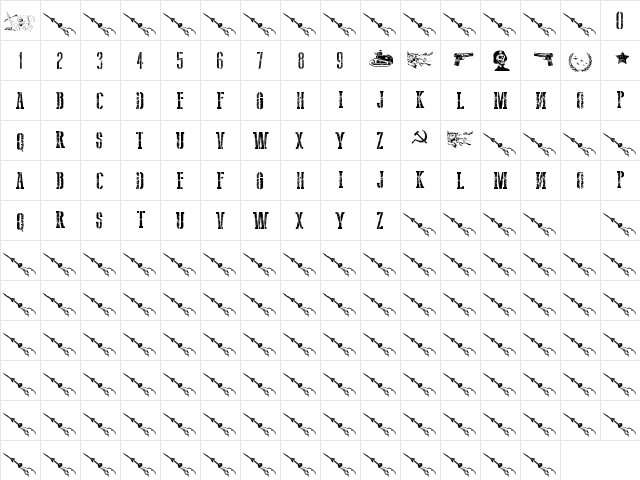
USSR Army Regular
Design Context for USSR Army Typeface
USSR Army has the no-nonsense character of military stencilling and tactical signage, projecting authority and directness.
Designed for tactical branding, military-inspired apparel, action game UI, and utility-focused signage.
Pro Tip: Use USSR Army at medium-to-large sizes where its utilitarian structure can be appreciated — the character detail gets lost at small sizes.